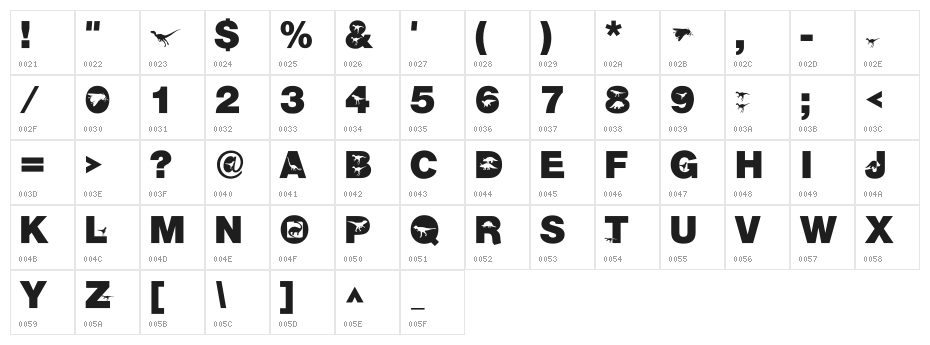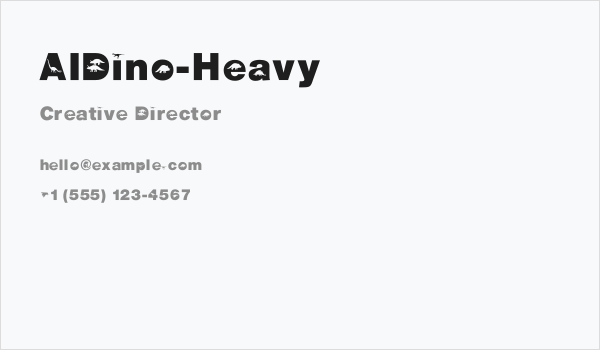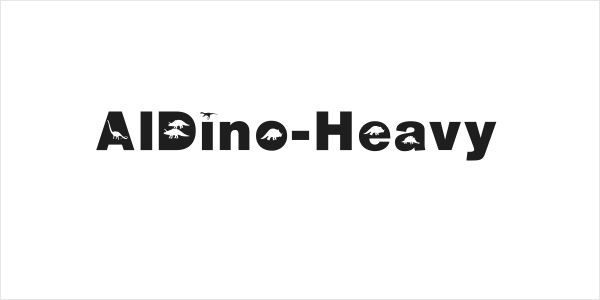
AIDino-Heavy Font
AIDino-Heavy Description
This playful and bold font features a unique design where each character incorporates dinosaur silhouettes, creating a whimsical and engaging visual effect. The letters are thick and robust, providing a strong presence while maintaining a fun and approachable style. The integration of dinosaur shapes within the characters adds a decorative element that is both eye-catching and distinctive. This font is perfect for projects that aim to capture attention and convey a sense of fun and creativity, such as children's books, themed party invitations, or educational materials related to paleontology or natural history.
| Proposed Projects | Ideal for children's books, themed party invitations, educational materials, and playful branding. |